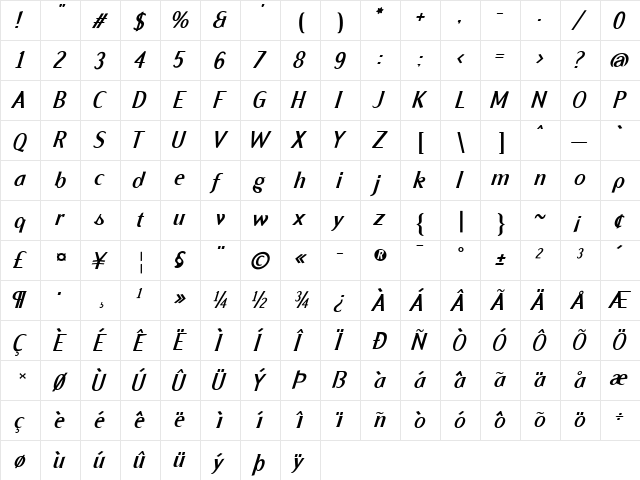
Formica Italic Font Preview
Formica Italic
Formica Italic Font Details
Design Context for Formica Typeface
Formica is a composed and adaptable typeface that performs quietly and consistently across a wide range of design contexts. The slanted form adds forward momentum and visual energy.
Pro Tip: Try Formica for annotation and caption copy alongside an upright companion — the contrast in angle creates a dynamic but ordered typographic system.